Instagram Bio Ideas
The best Instagram bio ideas are short, clear, and easy to scan. A strong identity line, one supporting detail, and one subtle text style usually work better than long, over-decorated bios.
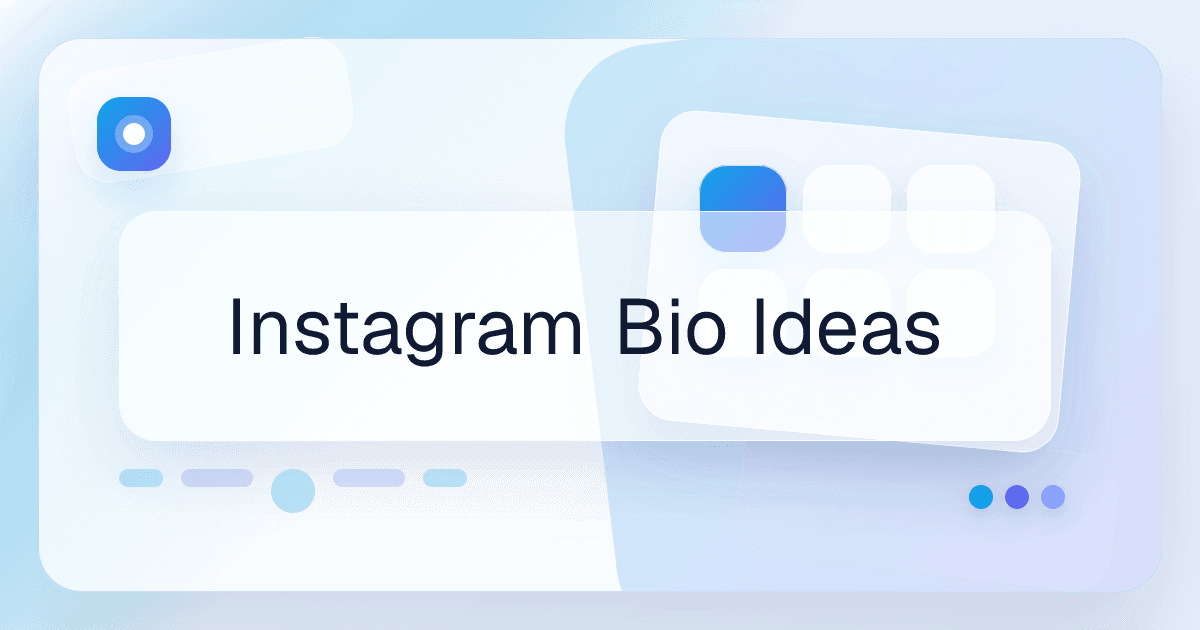
Keep the result readable
Put your niche or strongest keyword in the first line.
Use one main text style for the profile instead of mixing several.
Keep CTA lines short so they fit cleanly on mobile.
What makes a strong Instagram bio
A strong Instagram bio quickly explains who you are, what you post, or why someone should follow. The most effective bios keep the main identity line readable and use styling only where it adds personality.
Best font directions for Instagram bio ideas
Script, sans italic, small caps, and lightly bold styles usually work best for Instagram bios because they add visual contrast without making the niche or profile message hard to understand.
What kind of fonts work best for Instagram bios?
Readable script, small caps, sans italic, and lightly bold styles usually work best because they keep the bio clear while still looking more branded.
Should an Instagram bio use one font style or many?
One main style usually works better because it makes the profile feel cleaner and more intentional than mixing several unrelated styles.